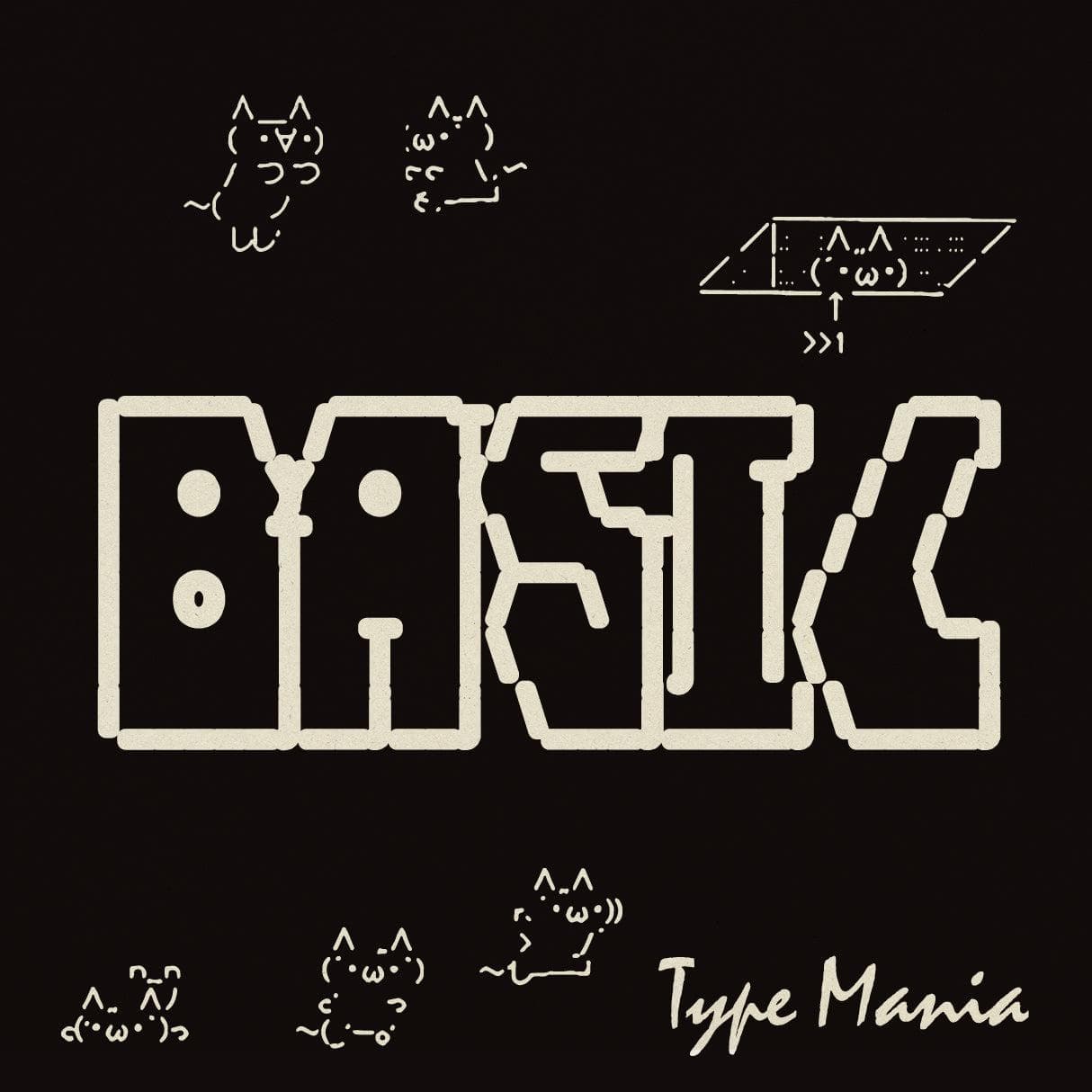
<p>Step into the digital frontier with <strong>Basic TM</strong>. This ASCII-inspired display font brings the nostalgia of early computing into the 2020s with a twist. Whether you're designing a flyer for an underground dance party or crafting a quirky advertisement, <strong>Basic TM</strong> will deliver undeniable style to any project.</p> <p><strong>Zip includes</strong></p> <ul> <li>OTF file</li> <li>TTF file</li> <li>WOFF2 file</li> </ul> <p><strong>Languages</strong></p> <ul> <li>Basic Latin</li> <li>Western European</li> <li>Euro</li> <li>Central European</li> <li>Pan African Latin</li> <li>193 glyphs</li> </ul> <p><em>Graphic Design is Easy (with Type Mania)®</em></p>